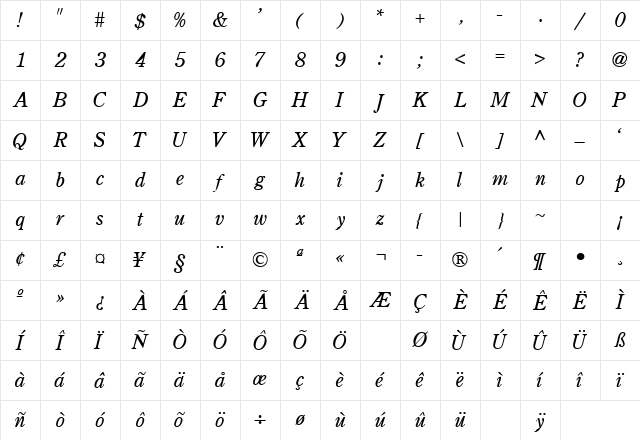
Complete CenturyRetrospectiveLightSSK Italic glyph index. Displaying only characters natively supported by CenturyRetrospectiveLightSSK Italic font.
CenturyRetrospectiveLightSSK wears its vintage influences proudly, with letterforms that recall mid-century signage, classic packaging, and nostalgia-driven design. The slanted form adds forward momentum and visual energy. Its slender proportions lend an understated elegance to any composition.
Font Pairing: Combine CenturyRetrospectiveLightSSK with a simple slab or neutral sans - period-accurate companions reinforce the vintage feel without competing for attention.
Pro Tip: Lean into CenturyRetrospectiveLightSSK's period character by pairing it with aged paper textures, muted colour palettes, and vintage illustration styles.